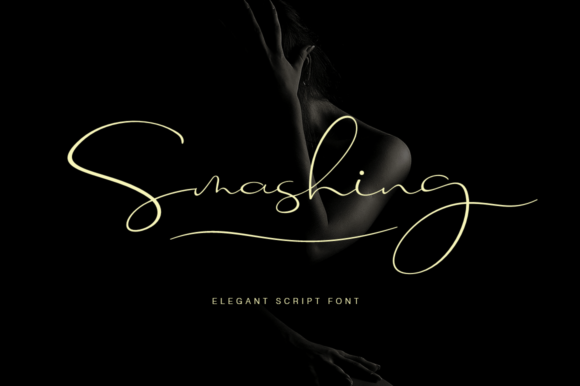
Welcome to the realm of Smashing Script, a font family born from the fusion of ink and inspiration. This exquisite script is the brainchild of Pasha Larin, a master calligrapher who poured his soul into crafting each letterform with unmatched grace and sophistication.
Picture a canvas adorned with the strokes of a skilled hand, where each word dances with fluidity and charm. The Smashing Script is the epitome of elegance, adding a touch of allure to any design it graces. Its sweeping curves, delicate flourishes, and a hint of playfulness make it a true standout in the world of typography.
Immerse yourself in a world where your words take center stage, where every letter exudes character and emotion. With Smashing Script, your designs will transcend the ordinary and captivate your audience with their captivating allure. Unlock the door to endless creative possibilities and let your imagination soar.
In this digital age where visual appeal reigns supreme, Smashing Script is your secret weapon to create designs that demand attention. Elevate your branding, social media presence, and marketing materials with fonts that resonate with your audience, leaving a lasting impression that sets you apart from the crowd.